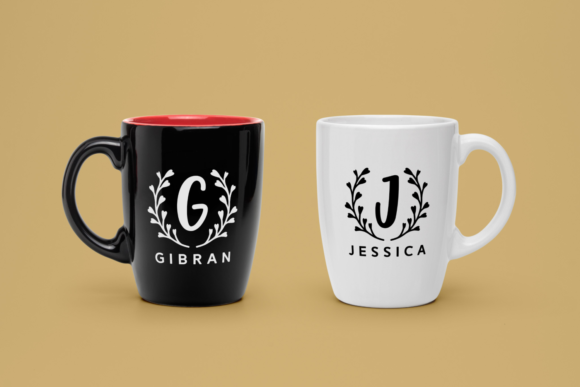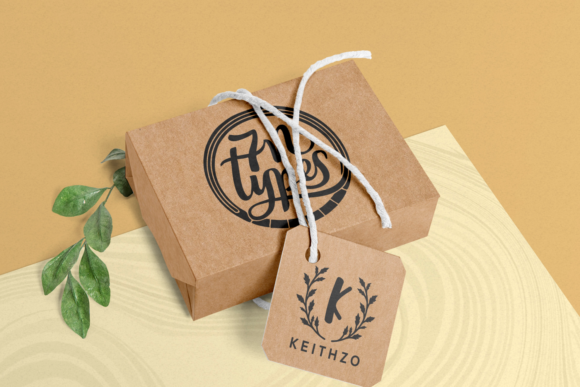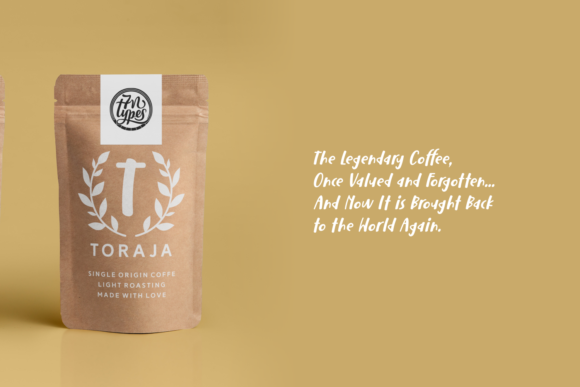
Introduction to Moca Font
The Moca is an amazing monogram font.
The characters are surrounded by amazing floral wreaths which are perfect to create unique designs .